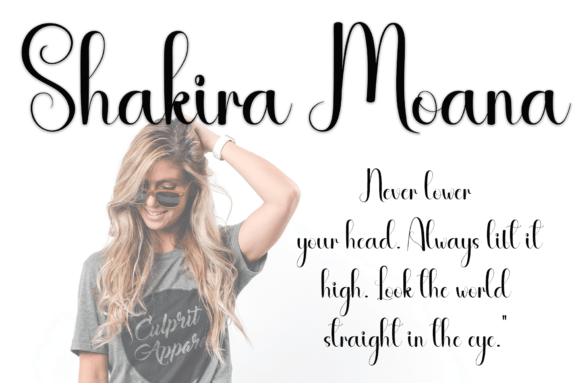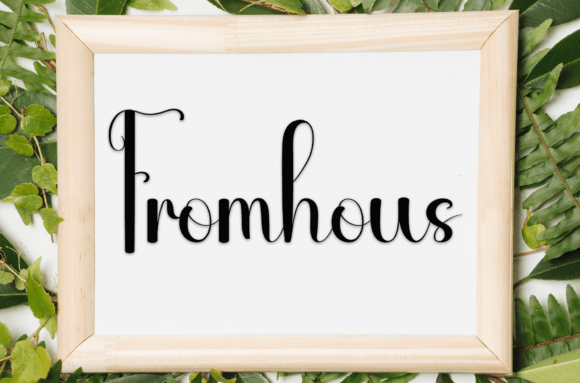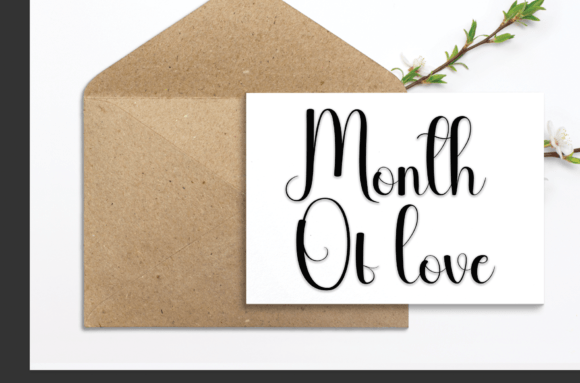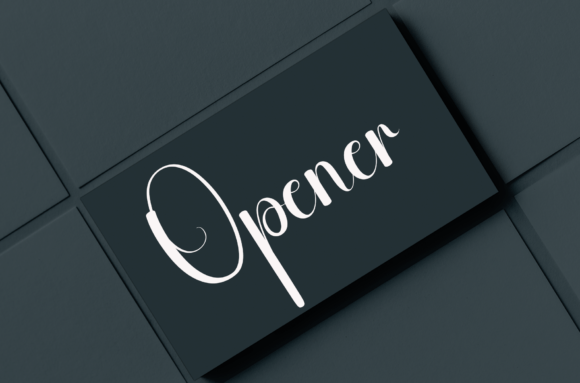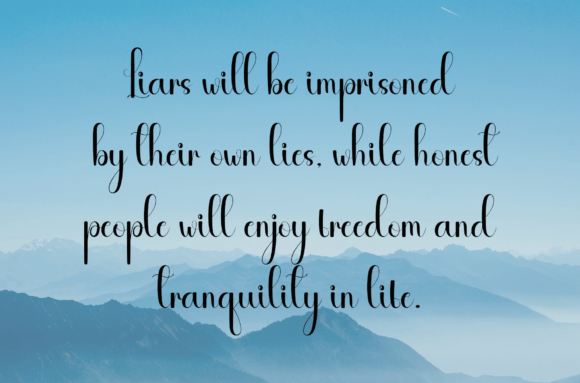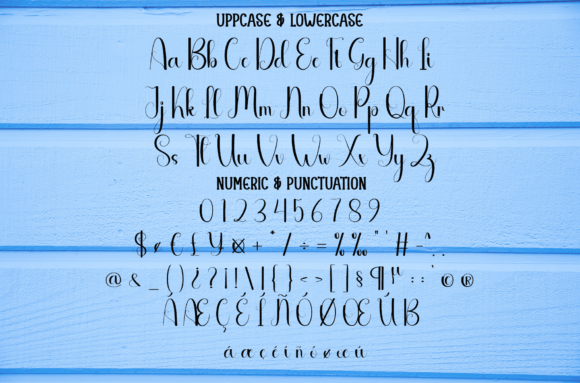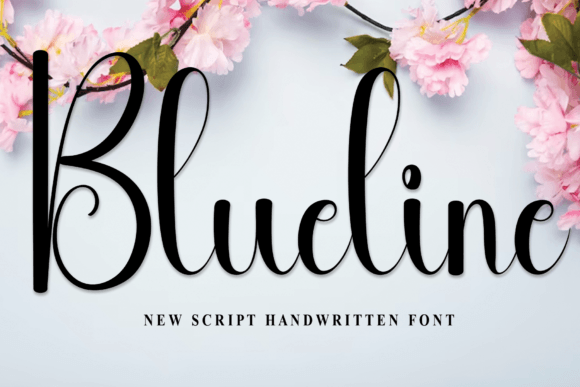
The Sweet Spot: Discovering the Charm of Blueline Font
I’ll never forget the time I was working on a wedding invitation project, and my client asked for a font that was “friendly, yet elegant.” I scoured the internet, tried out dozens of fonts, but nothing seemed quite right. That was until I stumbled upon Blueline Font. This sweet and friendly handwritten font won my heart, and I’ve been hooked ever since!
What I Love About Blueline Font ✨
• ✅ Fresh and neat design that’s perfect for a variety of creative projects
• ✅ Friendly and approachable feel that’s sure to delight your audience
• ✅ Works beautifully for both digital and print designs
• ⚠️ Limited availability of stylistic alternates, which might be a drawback for some designers
• ⚠️ May not be the best choice for very formal or corporate designs, as it’s quite playful
The Designer Inspiration: A Backstory
Blueline Font was designed with the intention of creating a friendly and approachable font that would bring a touch of warmth to any design. The designer, inspired by the beauty of handwritten letters, aimed to create a font that would feel like a handwritten note from a friend. With its fresh and neat design, Blueline Font is perfect for designers who want to add a personal touch to their work.
Q: What is Blueline Font best used for?
A: Blueline Font is ideal for designs that require a friendly and approachable feel, such as wedding invitations, cards, and other creative projects.
Q: Is Blueline Font suitable for digital designs?
A: Yes, Blueline Font works beautifully for both digital and print designs, making it a versatile choice for designers.